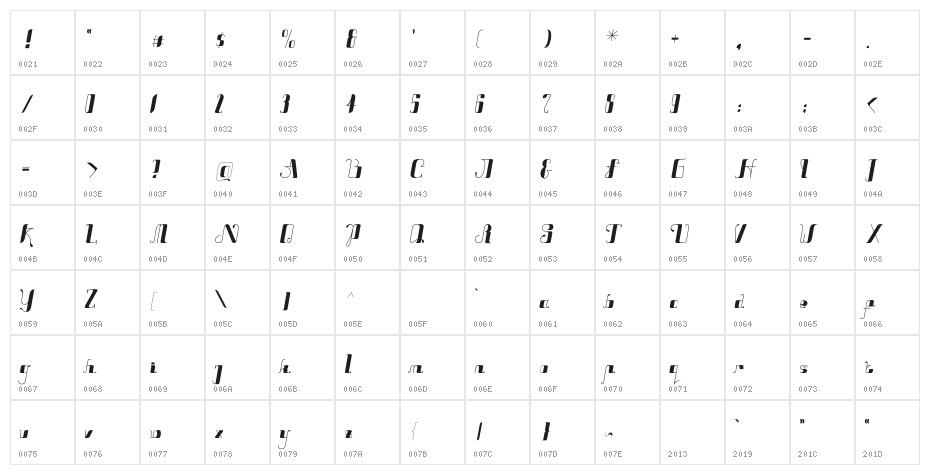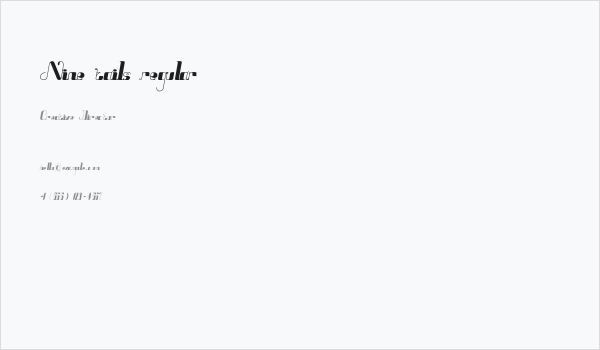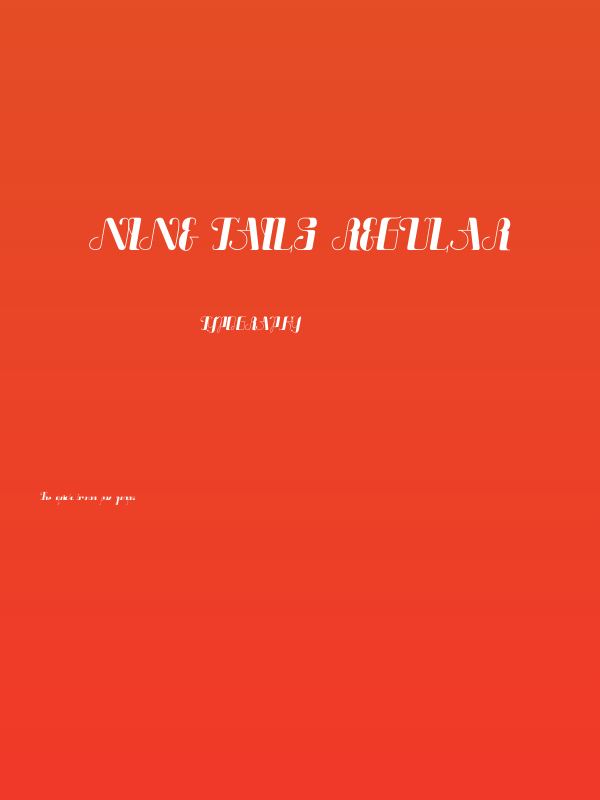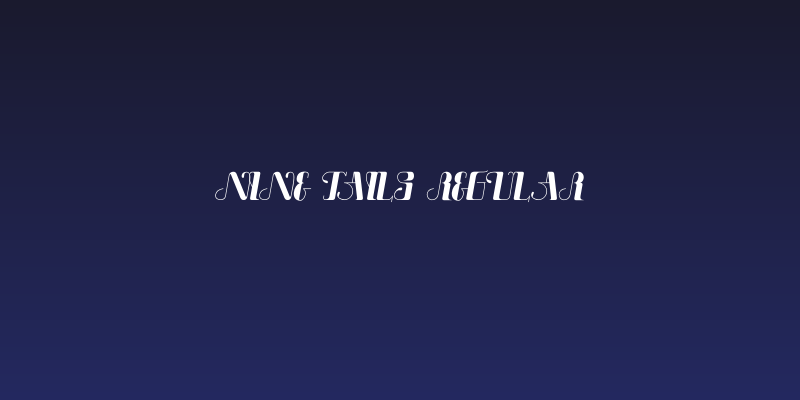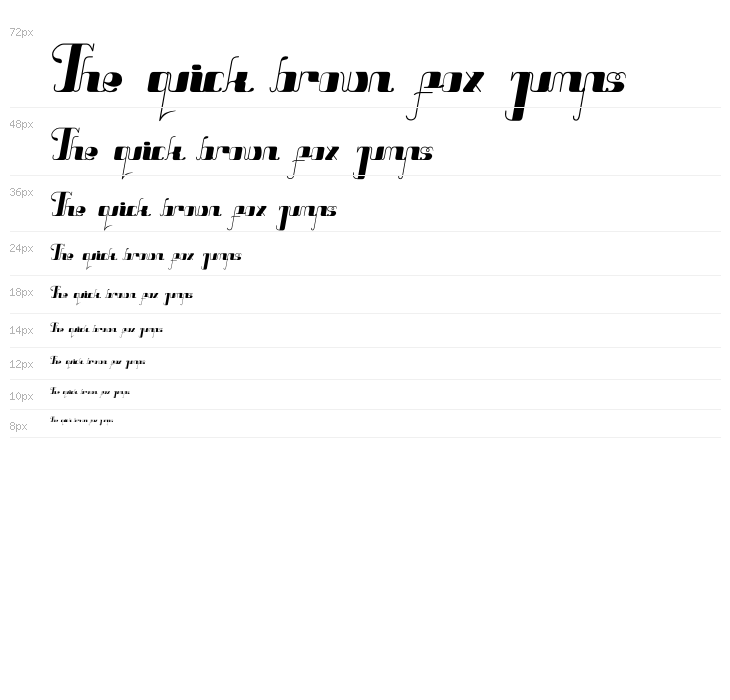
Nine tails regular Font
Nine tails regular Description
This font features a unique and artistic design with a blend of calligraphic and modern elements. The uppercase letters are characterized by elegant, sweeping curves and intricate details, creating a sense of movement and fluidity. The lowercase letters maintain a cohesive style, with some characters extending below the baseline, adding to the dynamic appearance. The numerals are consistent with the overall aesthetic, offering a stylish yet readable form. Special characters are crafted with the same attention to detail, ensuring a harmonious look across all glyphs. The font's distinctive style makes it suitable for creative and expressive projects.